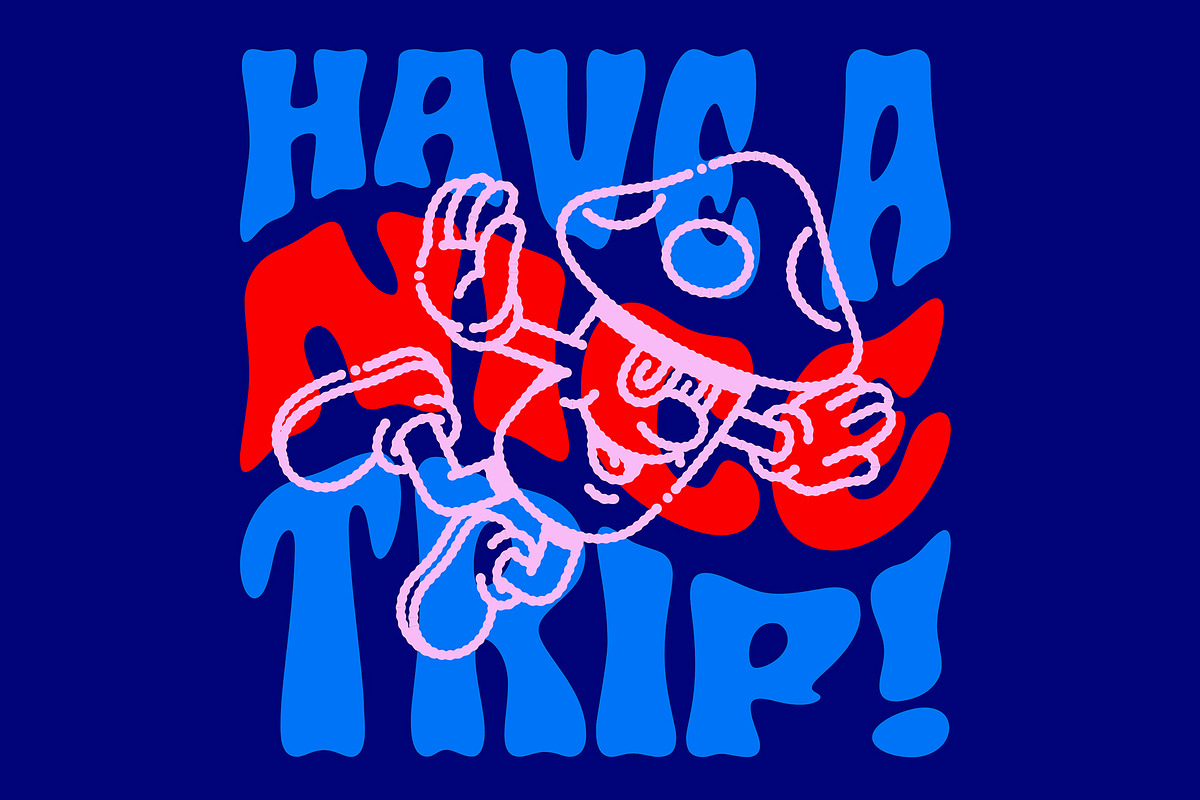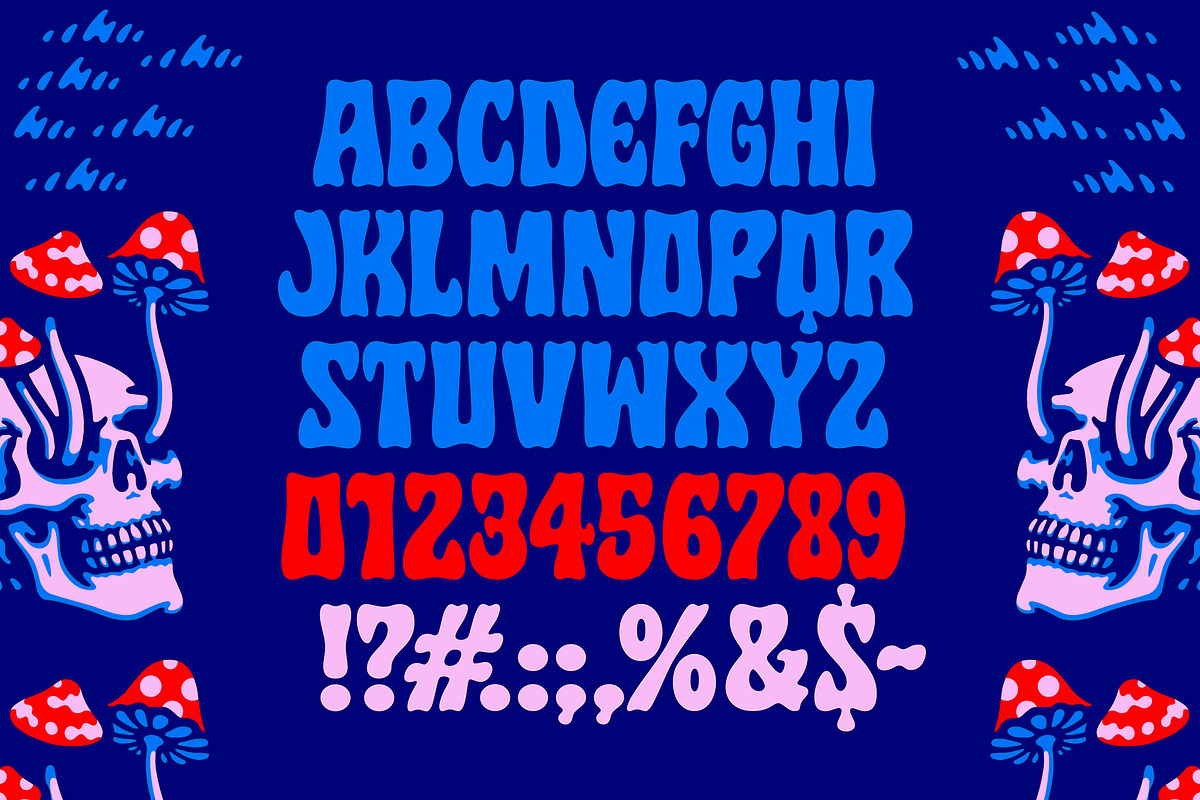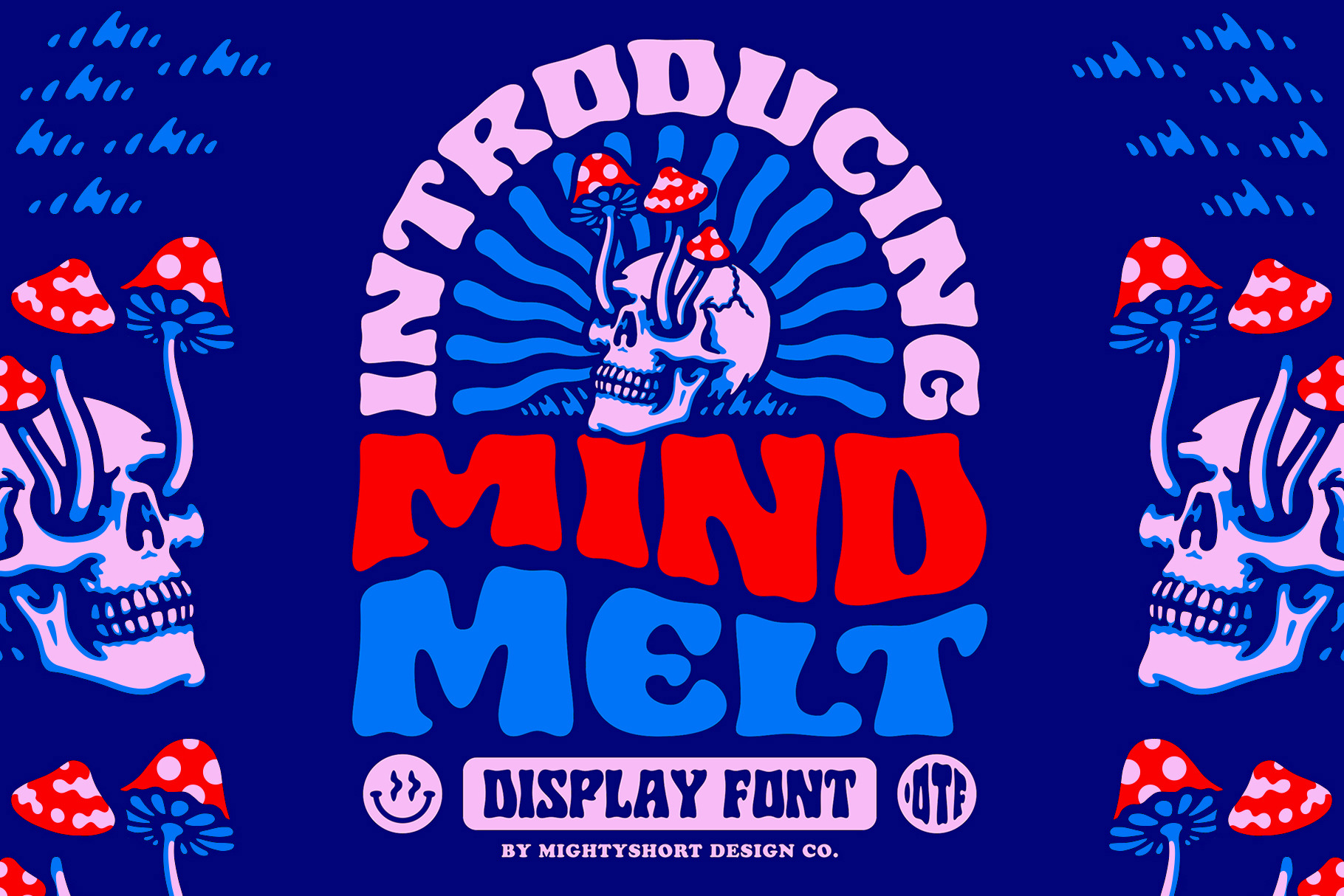
Mind Melt Font
Mind Melt is a font inspired by the psychedelic movement of the mid 60's. Bring your artwork to the next dimension using these drippy letters!
This font comes with Uppercase Letters, Numbers and some punctuation.